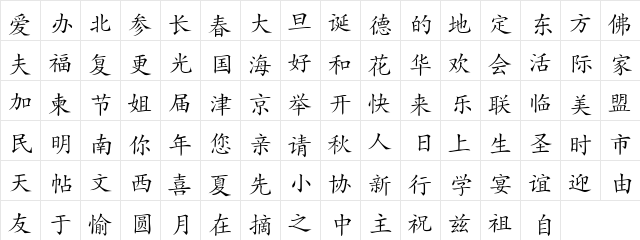
Hanzi-Kaishu Regular
Design Context for Hanzi-Kaishu Typeface
Hanzi-Kaishu takes a measured approach to typography — its balanced proportions and neutral character make it a reliable workhorse for both digital and print work.